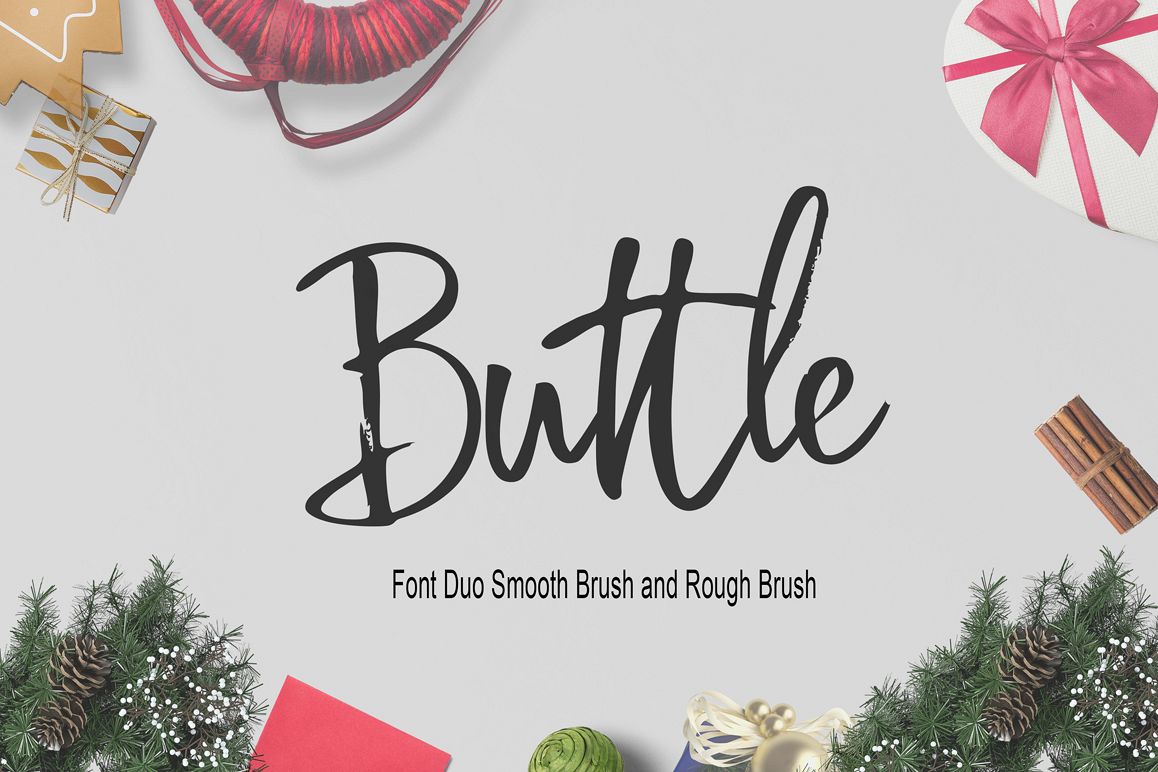
Buttle Font Duo
INTRODUCING BUTTLE FONT DUO
Buttle Font Duo An organic and expressive handwritten brush script font designed for versatility. It's legible; making it perfect for product packaging, editorial work, and poster design, and it oozes personality; great for branding, invitations, and more.
Buttle Font Duo An organic and expressive handwritten brush script font designed for versatility. Very good for branding, invitations, and more.